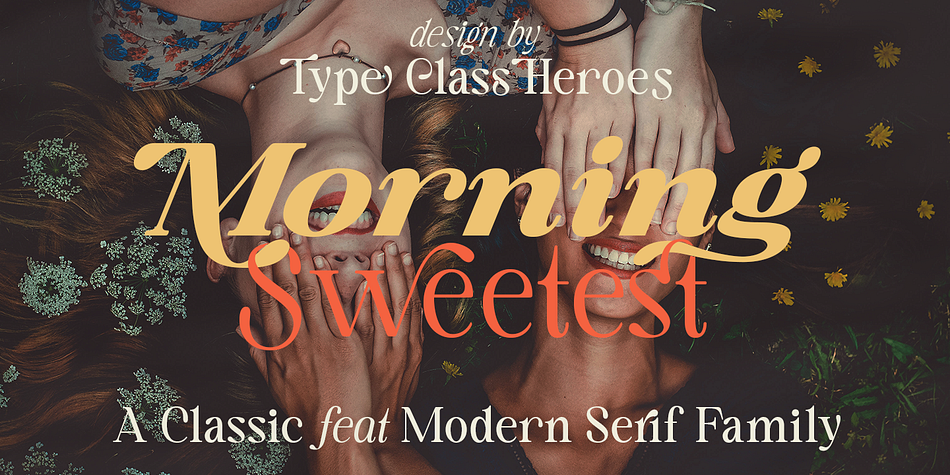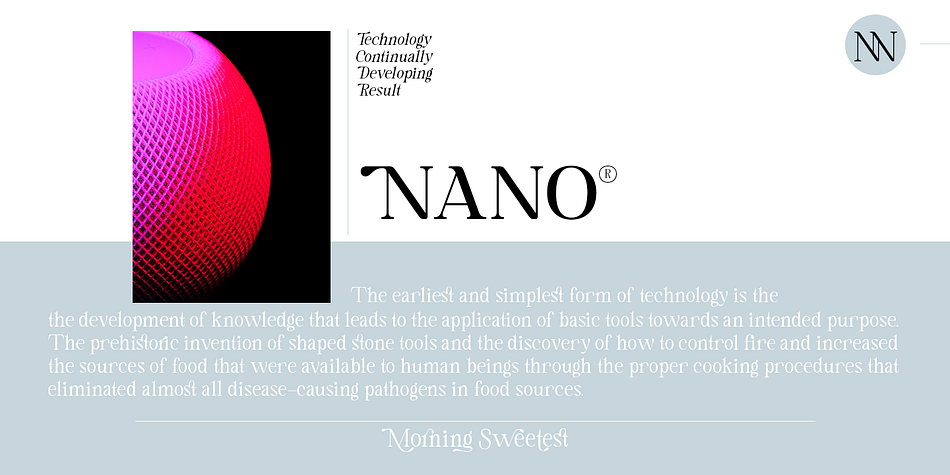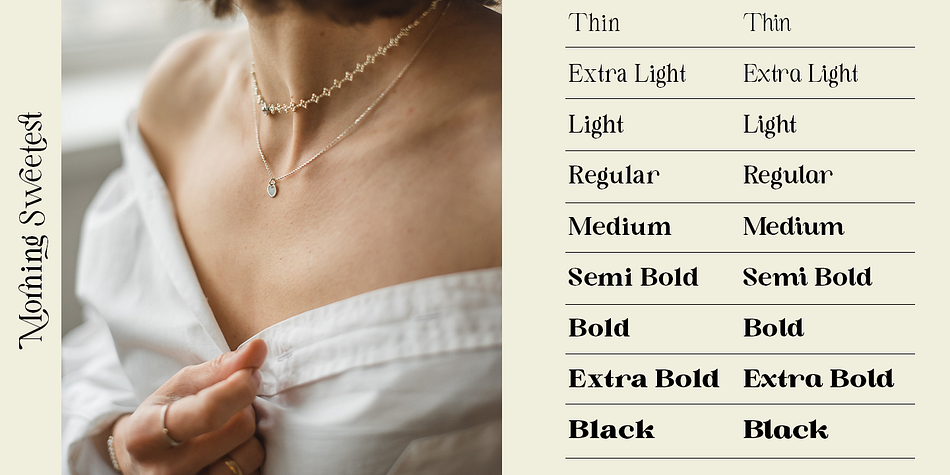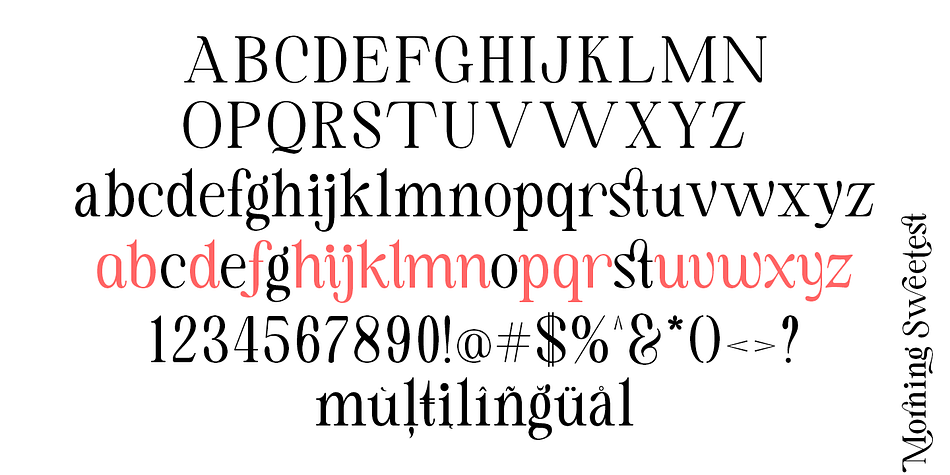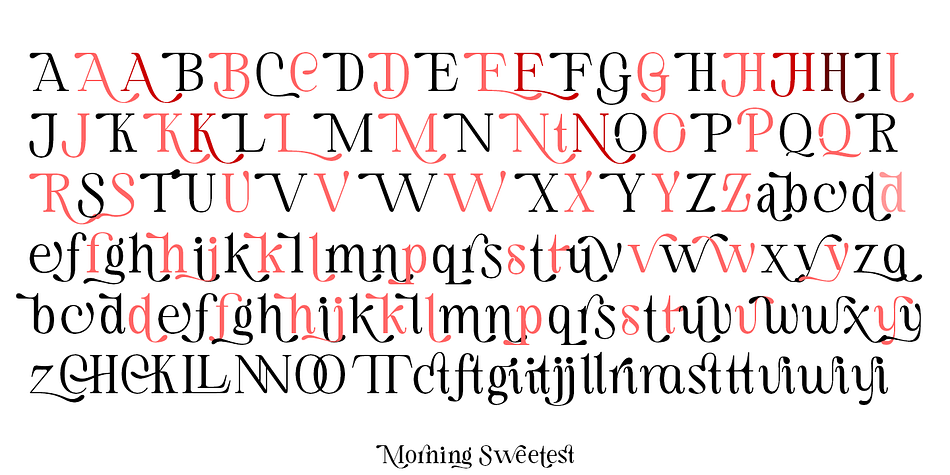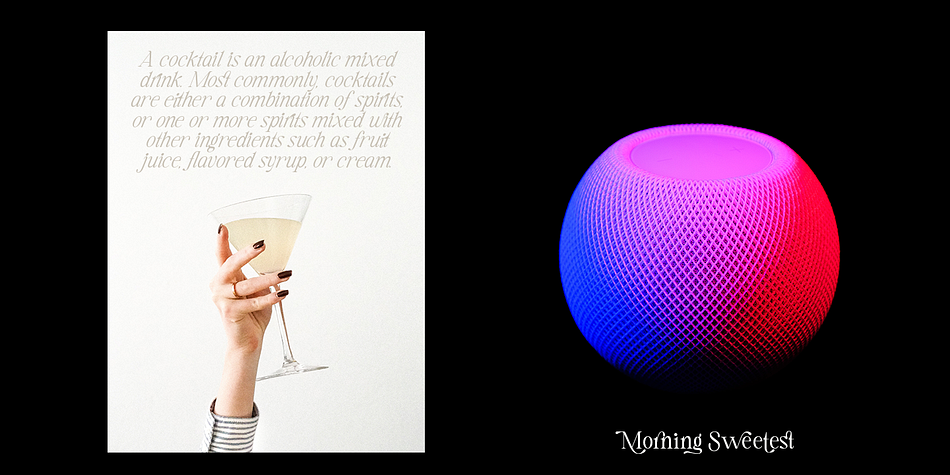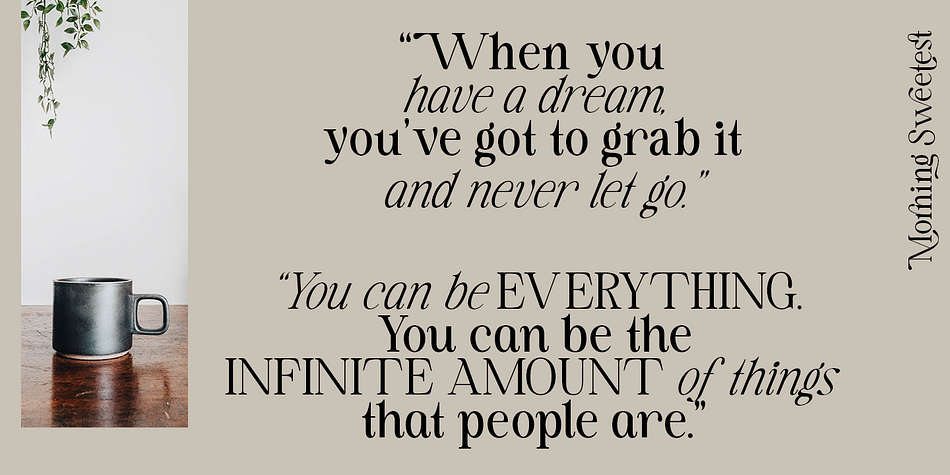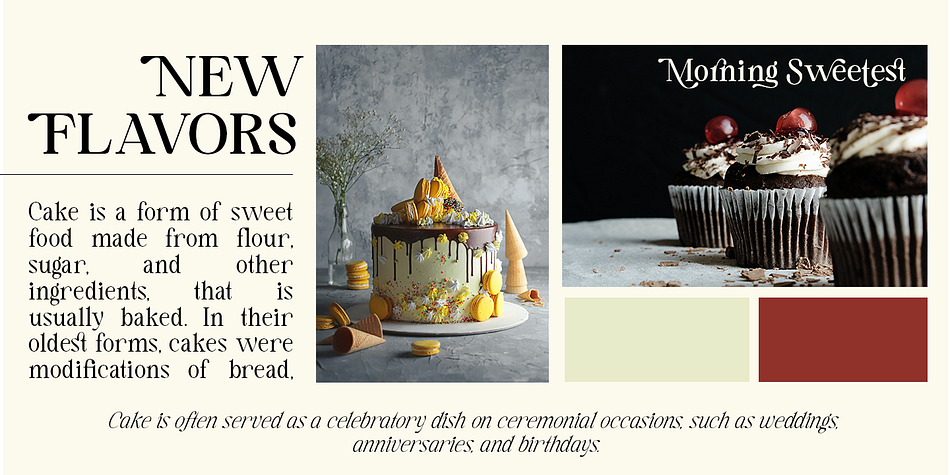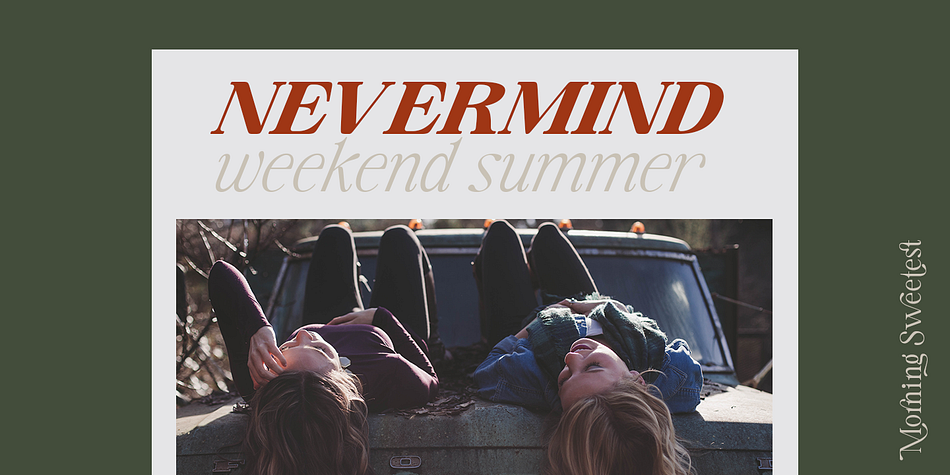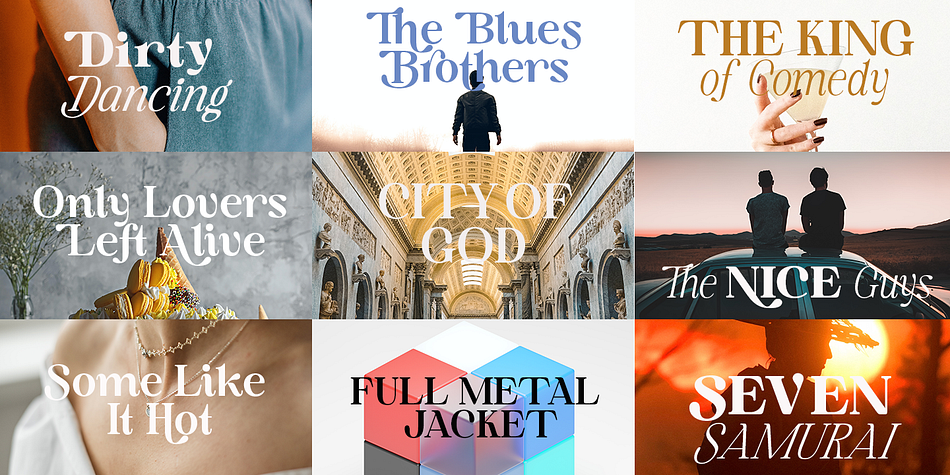
Designed by Suandana Ipandemade, Morning Sweetest is a serif font family. This typeface has twenty-four styles and was published by madeDeduk.
Morning Sweetest and Morning Sweetest Neue is a Classic feat Modern serif family. It’s clean and smooth with 9 variable weight combining the regular and italic and much alternative inside. Suitable to create any branding, product packaging, invitation, quotes, t-shirt, label, poster, logo etc.
- Alternative
- Ligature